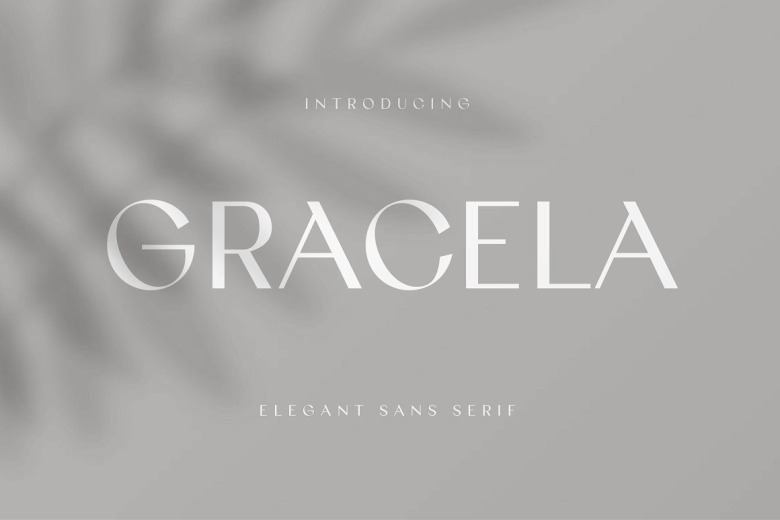
Gracela Font
Introducing the Gracella font in the Elegant Sans Serif style, a versatile font that can be used for formal and casual purposes. Gracela font is a regular style, not too thin nor too thick, it is very suitable for the needs of logos, branding, websites, chic designs.
Gracela Sans Serif Elegant Font